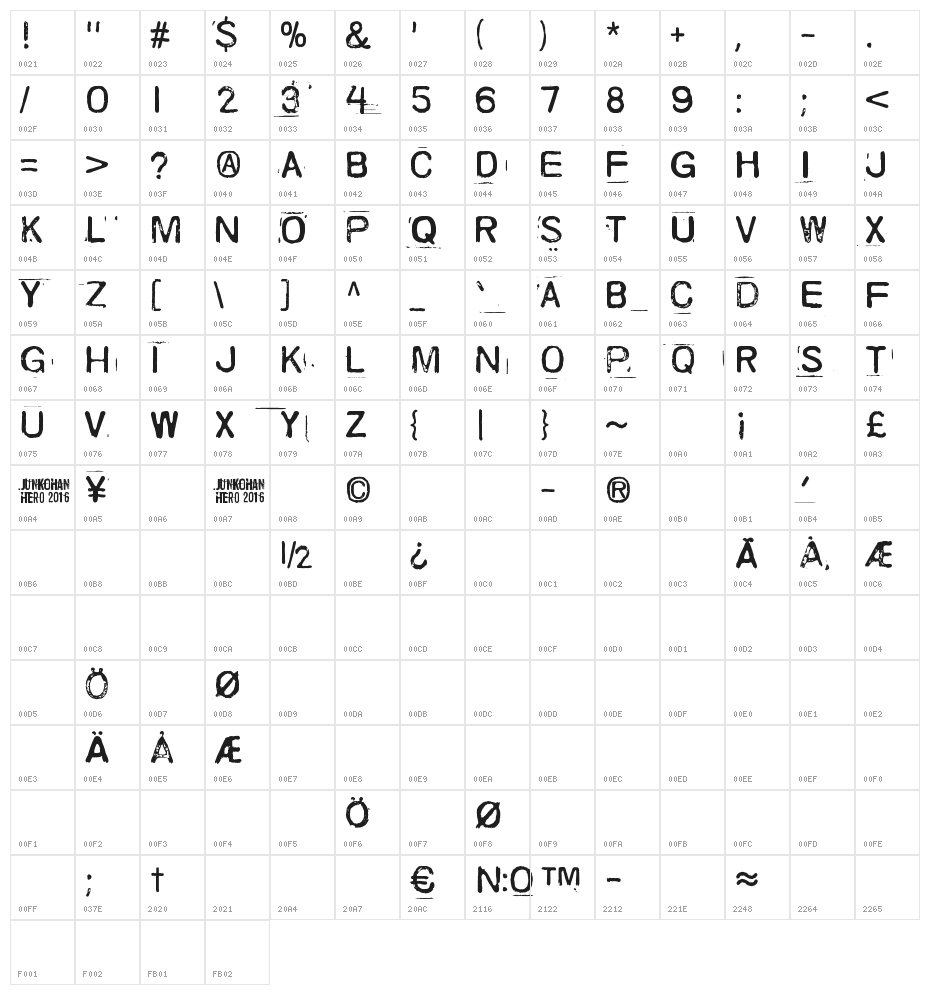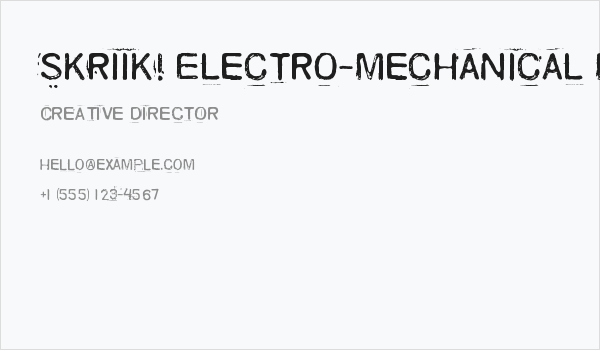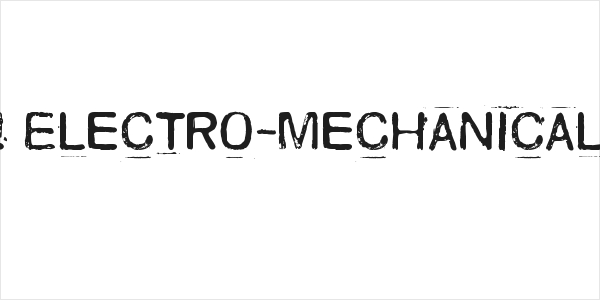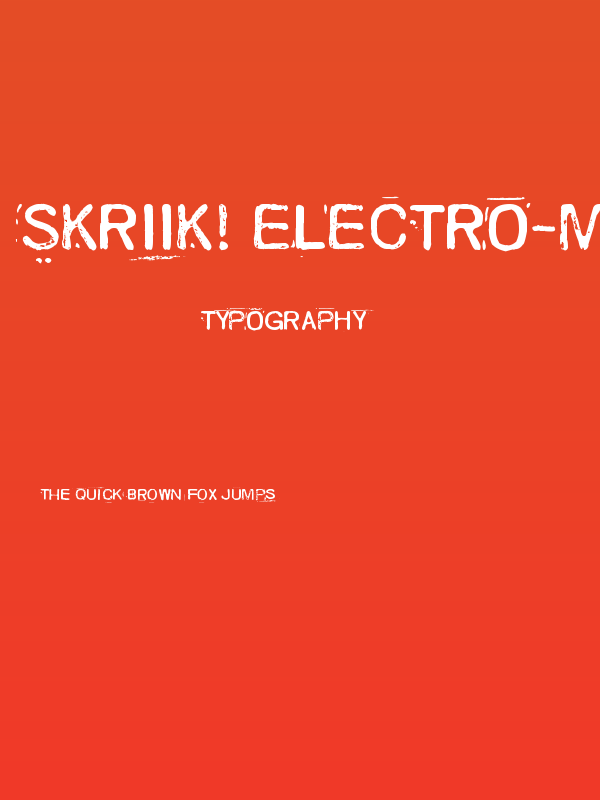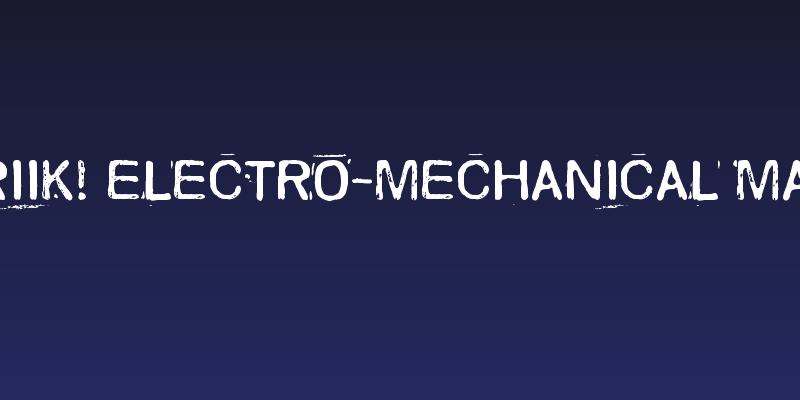
Skriik! Electro-mechanical mach Font
Skriik! Electro-mechanical mach Description
This font features a distressed, mechanical appearance with a rugged texture that mimics the look of worn-out machinery or industrial stencils. The characters are bold and uppercase, with a consistent width that gives them a monospaced feel. The edges are slightly rough, adding to the vintage and industrial aesthetic. The numbers and special characters maintain this style, ensuring a cohesive look across all glyphs. The font's unique texture and bold presence make it suitable for projects that require a strong, industrial theme.
| Overall Style | Vintage, Industrial |
| Use Case | Logos, Posters, Branding |
| Proposed Projects | Ideal for industrial-themed designs, vintage posters, branding for mechanical products, or any project needing a rugged, bold typeface. |